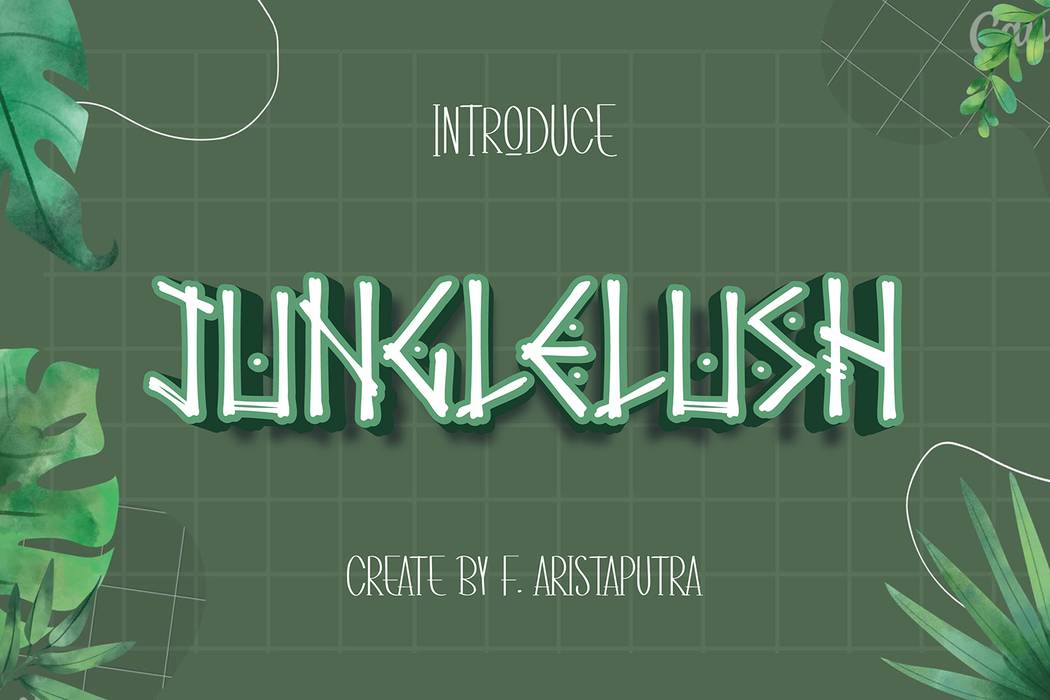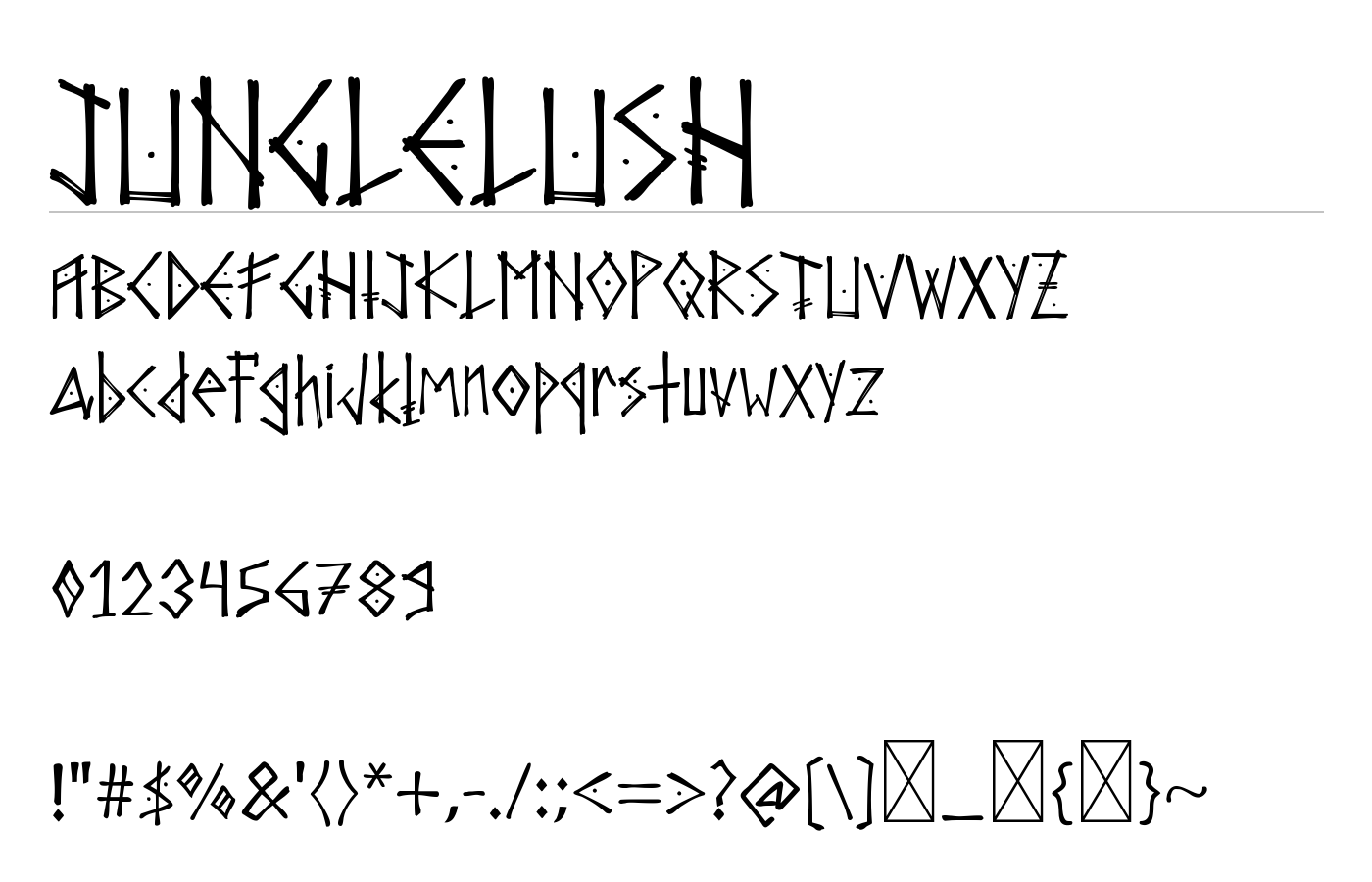
Junglelush is a quirky, narrow sans serif font with a hand-drawn, tribal-inspired look. Its tall, angular letterforms with uneven strokes and unique geometric details create an adventurous and playful vibe, making it ideal for eye-catching headlines, posters, or creative branding in themes related to nature or the outdoors. This font works best where a distinctive, spirited style is needed to grab attention and convey energy.
Junglelush Font
About Junglelush Font